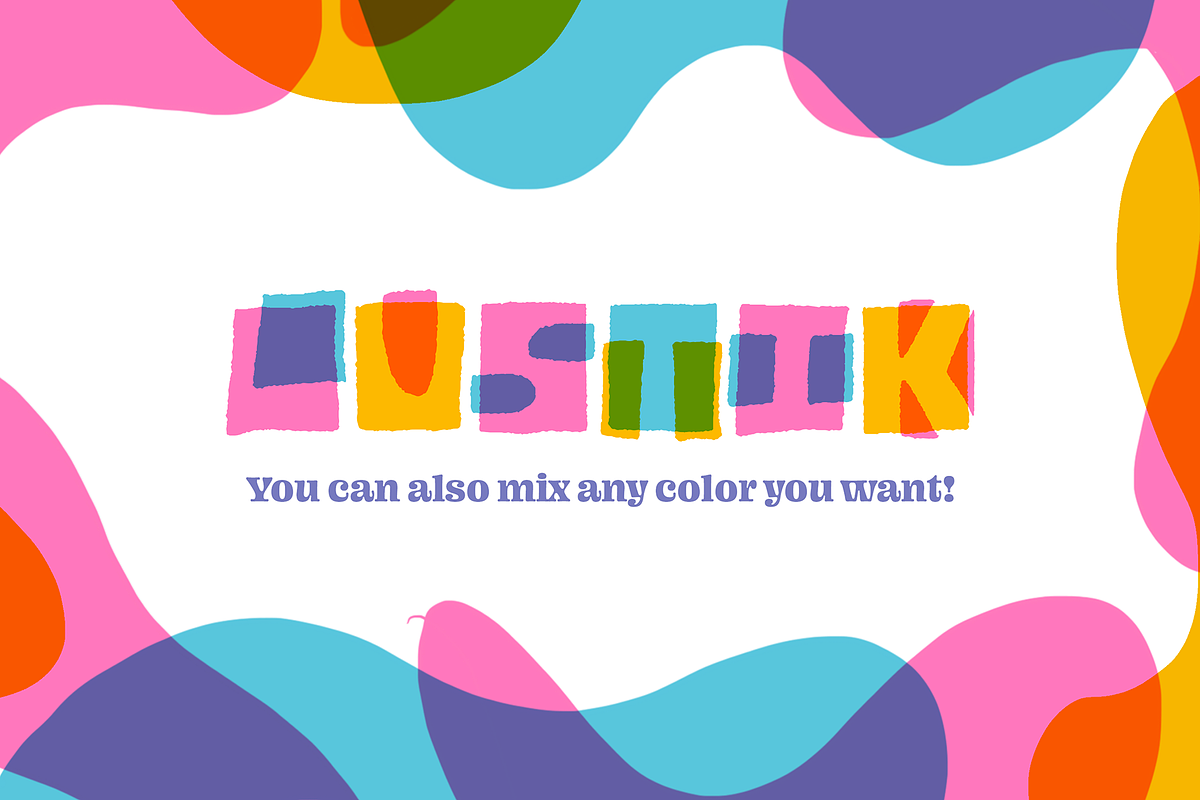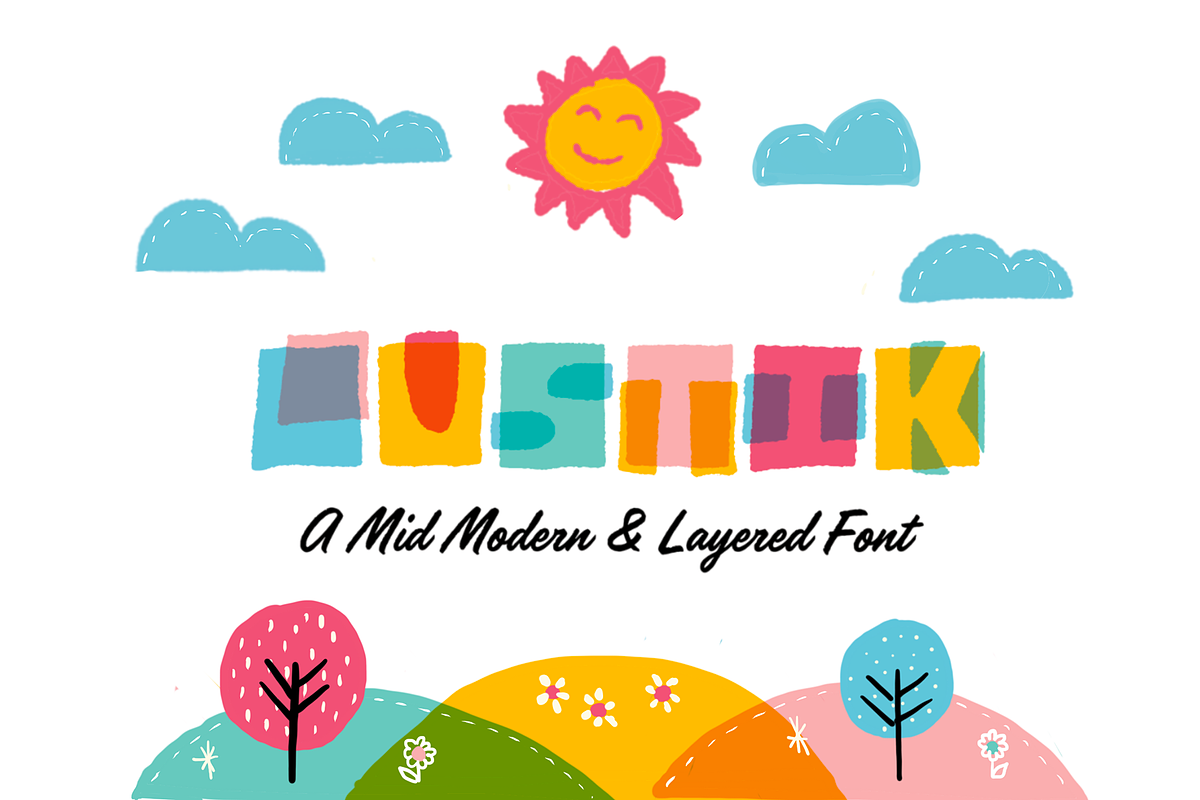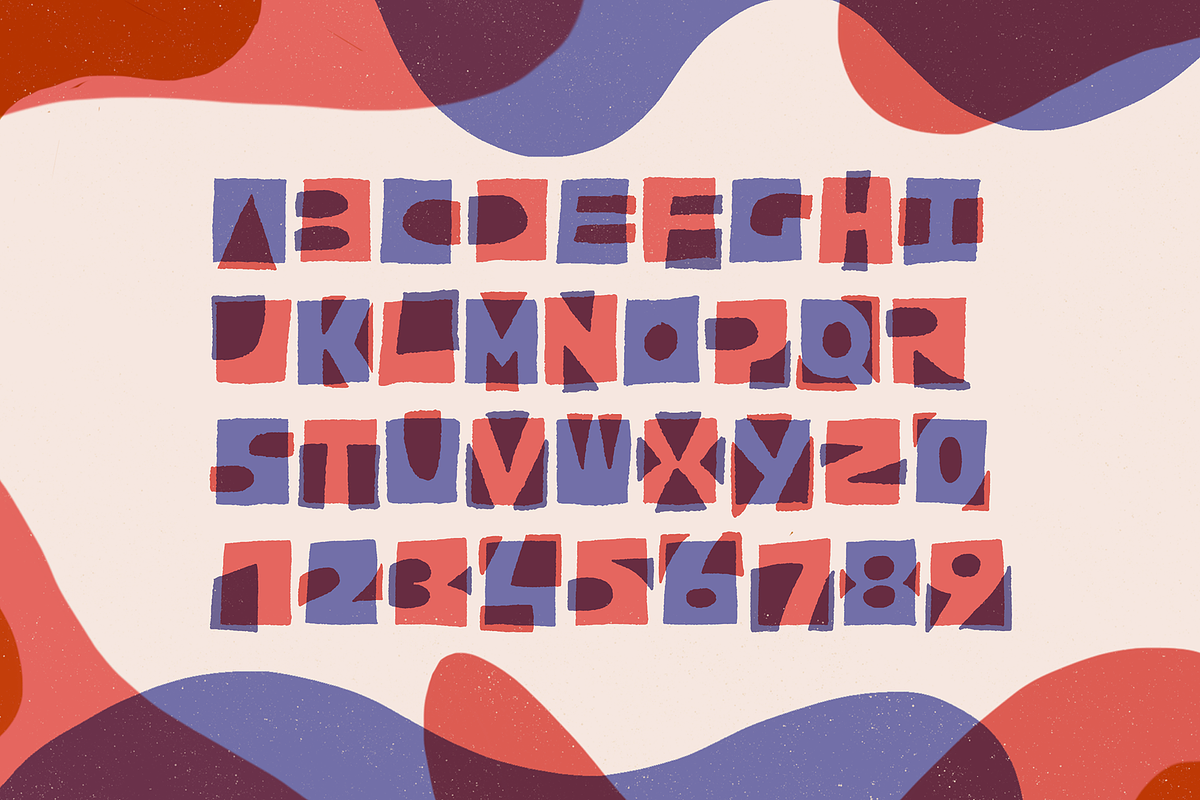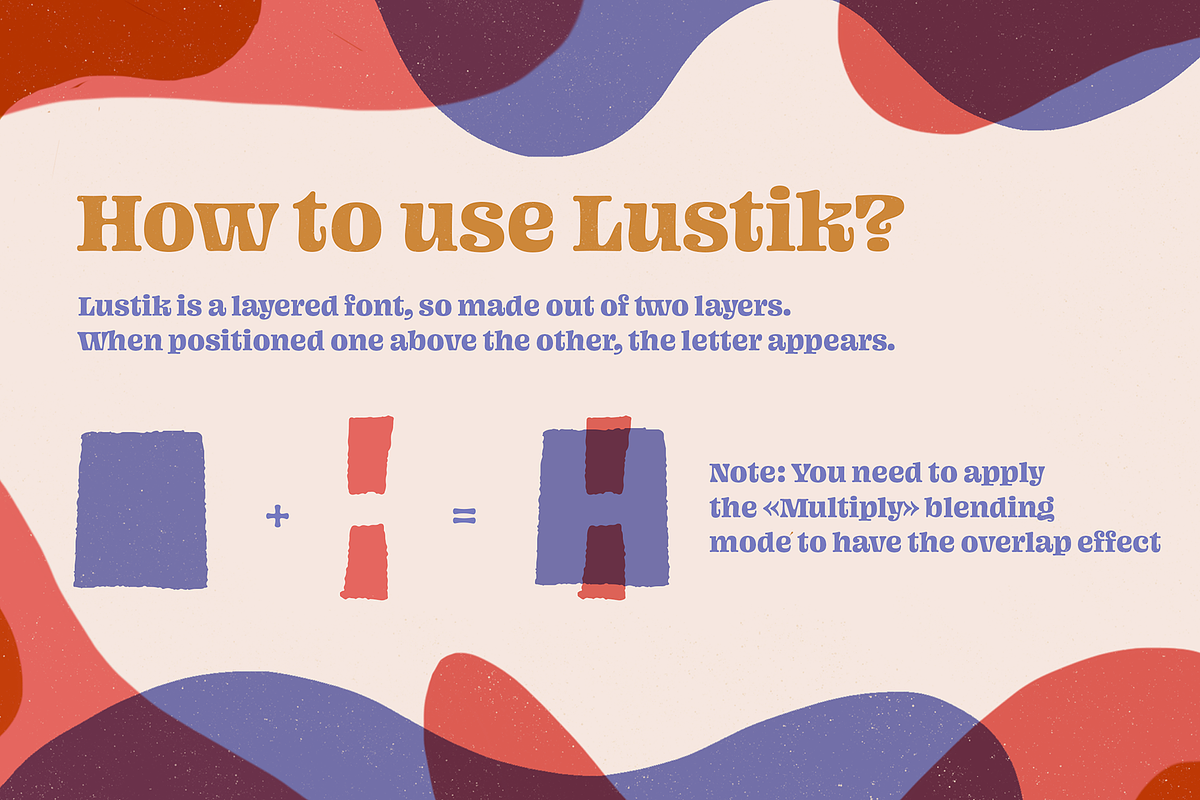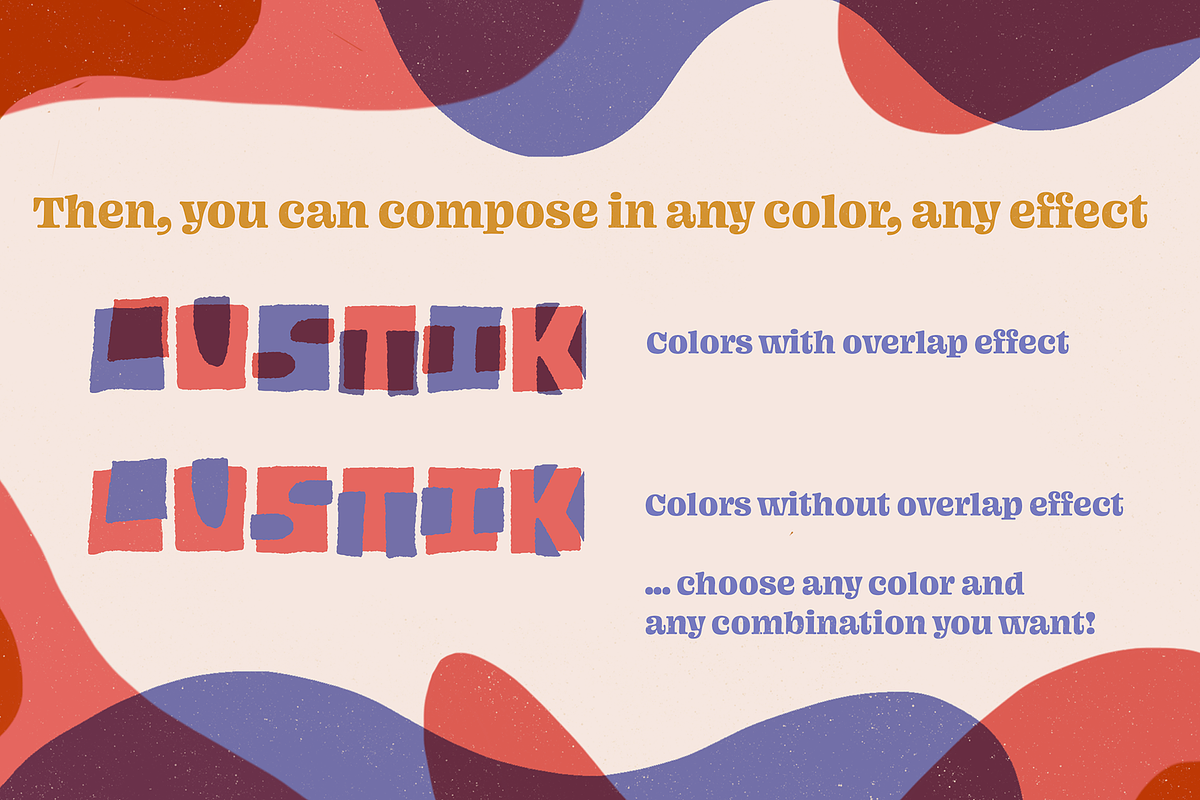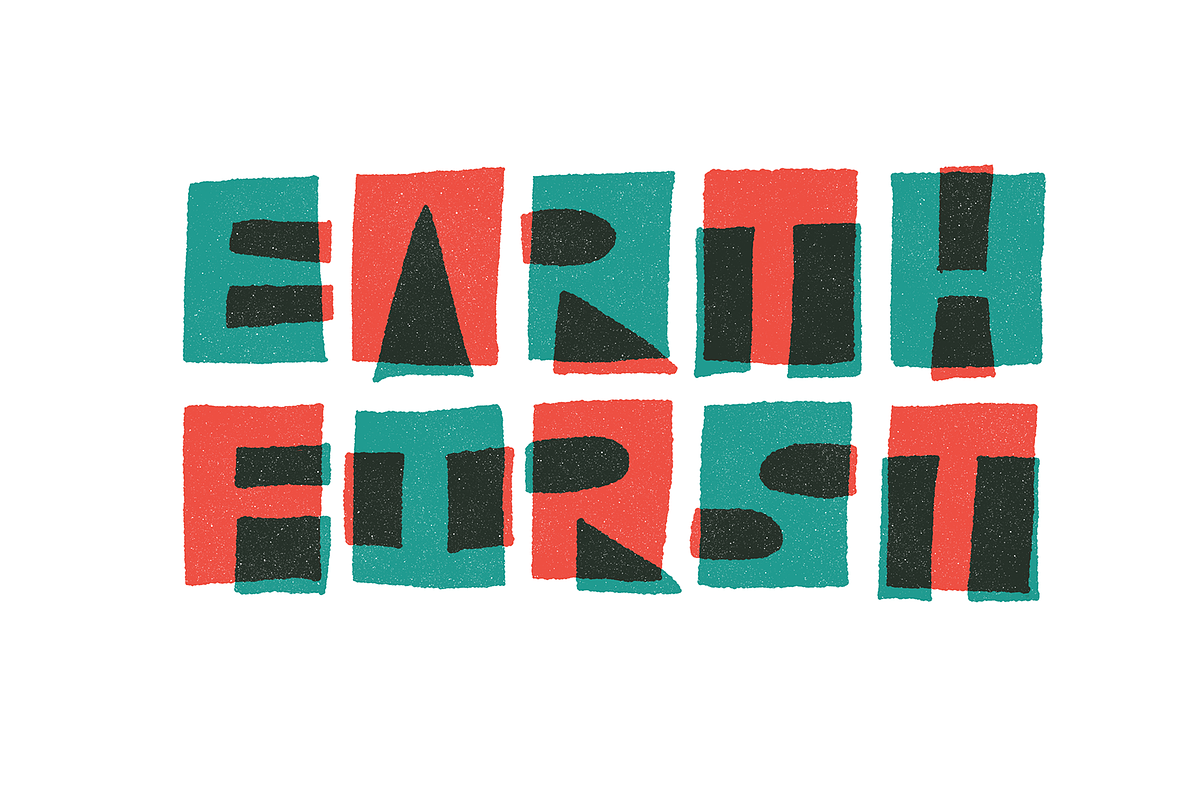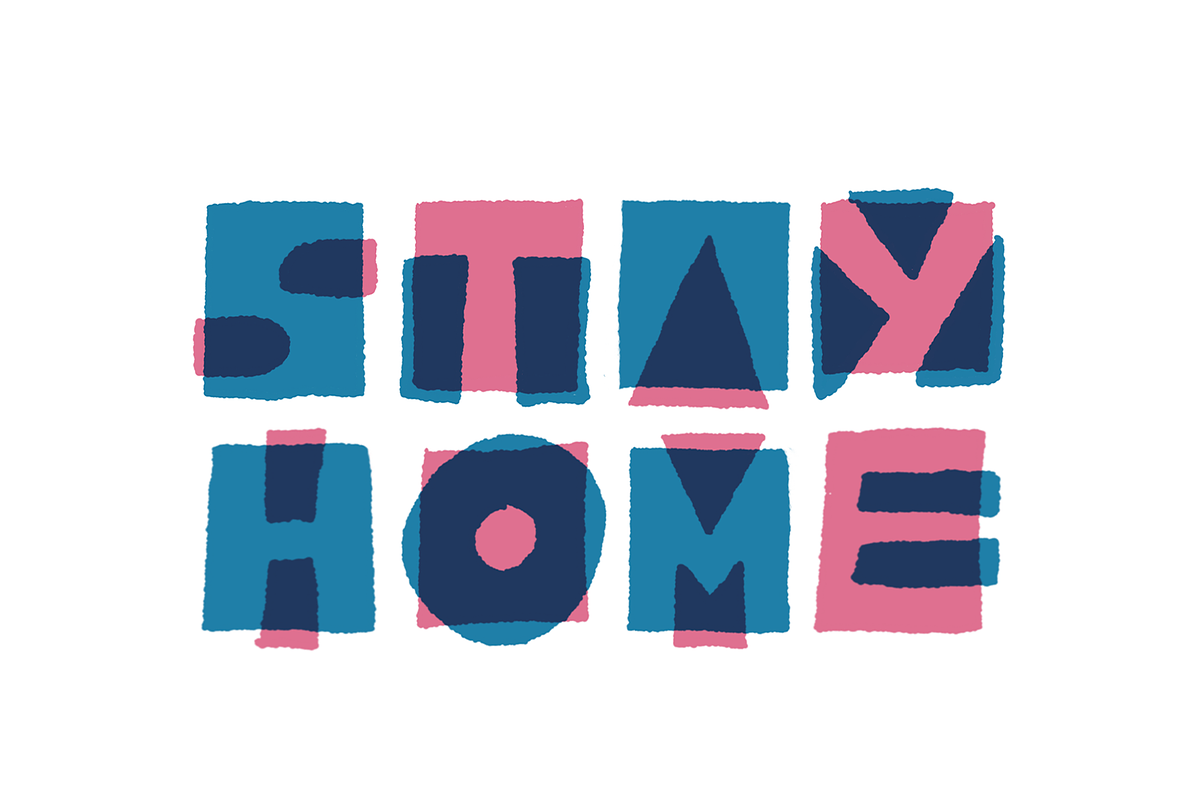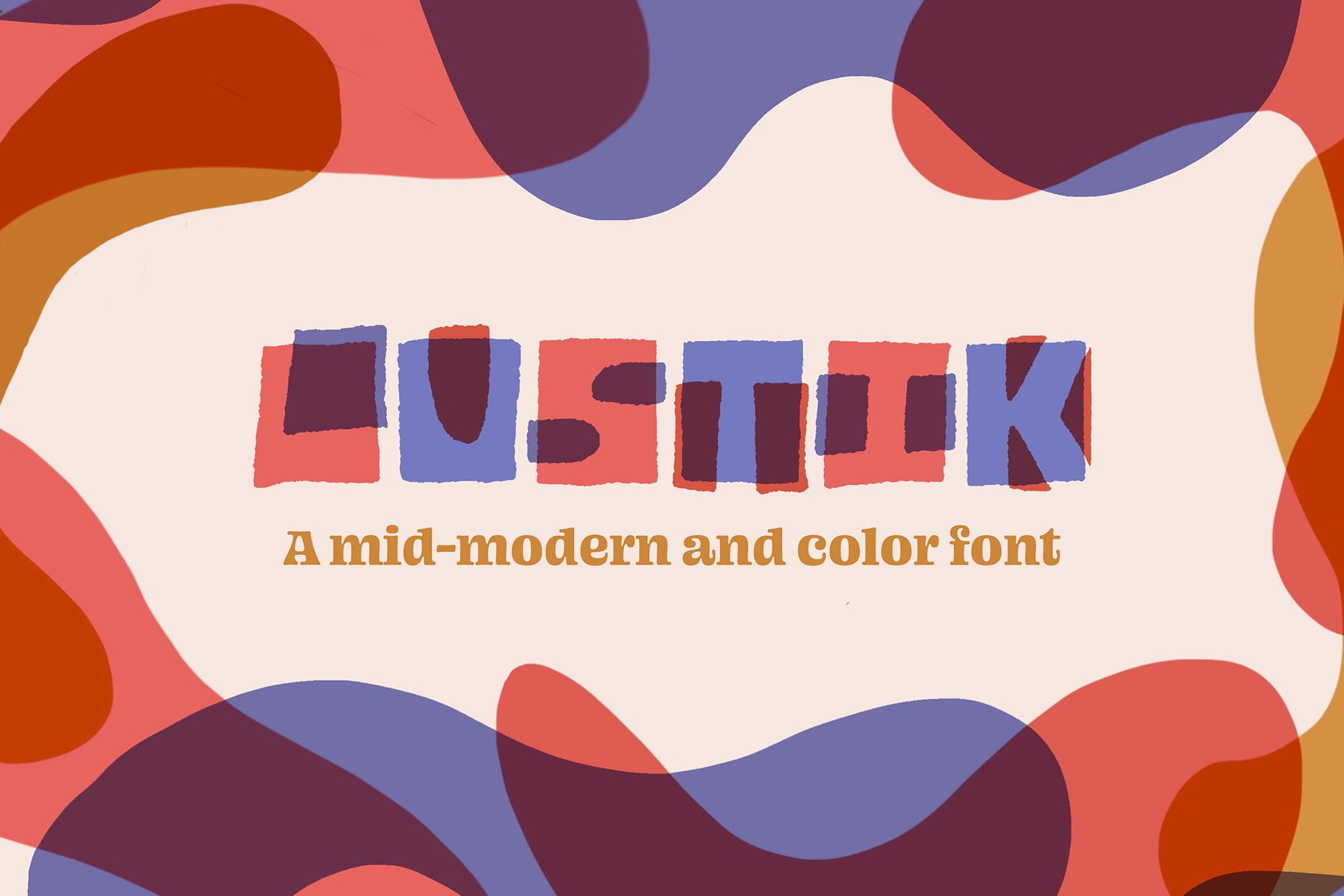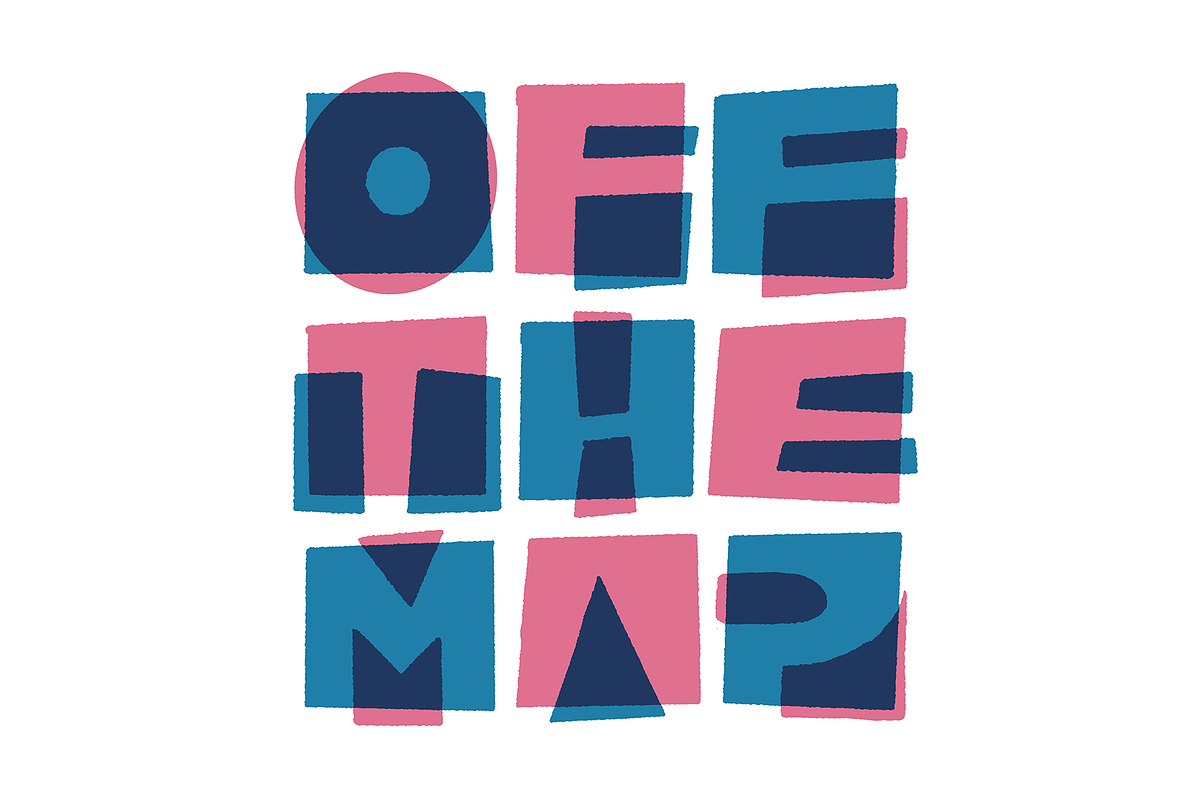
Lustik is a fun color font with a strong mid century modern identity. It is based on shapes which create the letters. You can add an overprint effect on it to reinforce the vintage/retro style.
Lustik is also a layered font. So you can use any color for any letter as you can see on the examples here. It can be used for old vintage style posters, book covers, packaging, or for fun and children related stuff, just like birthday invitations for example.